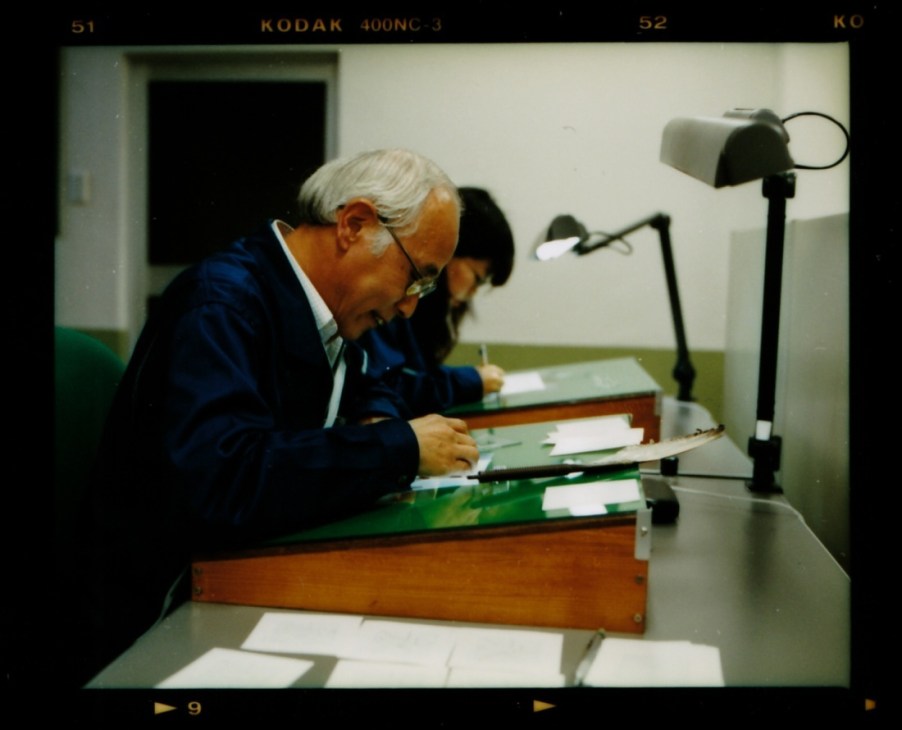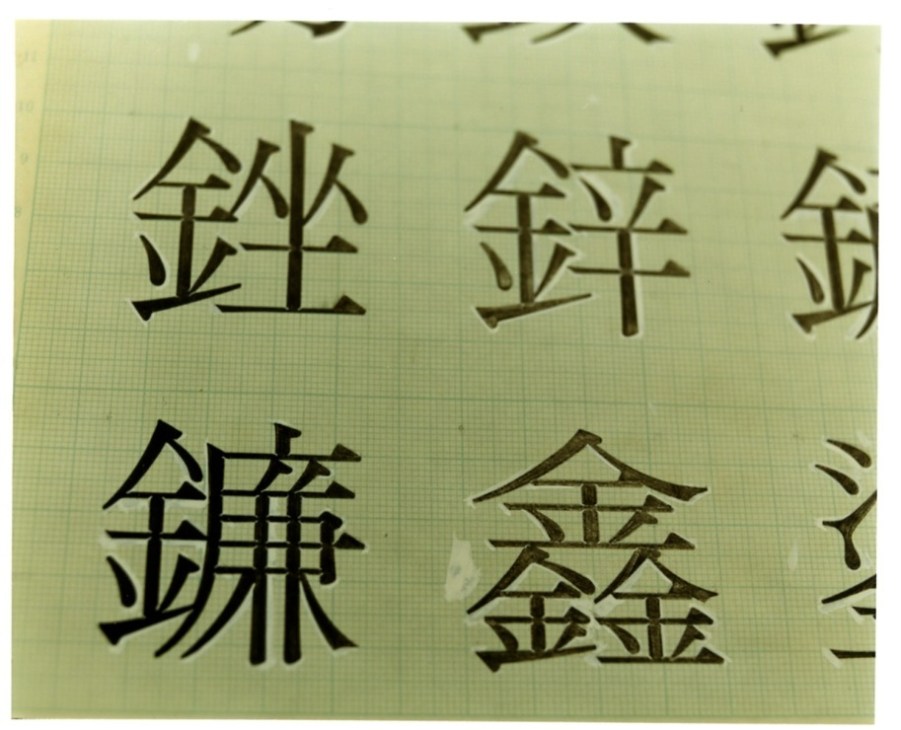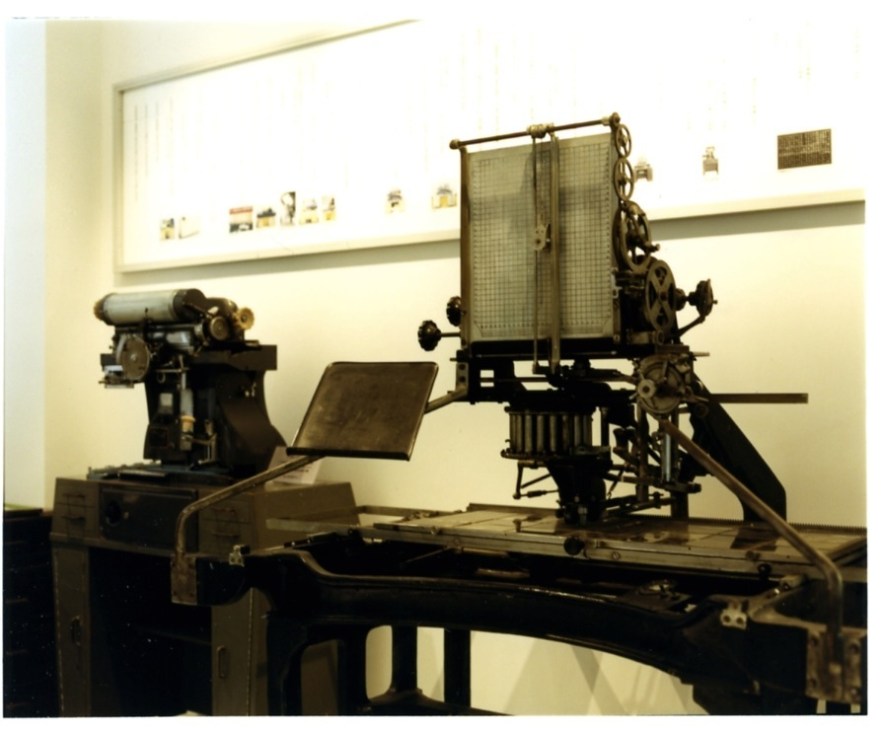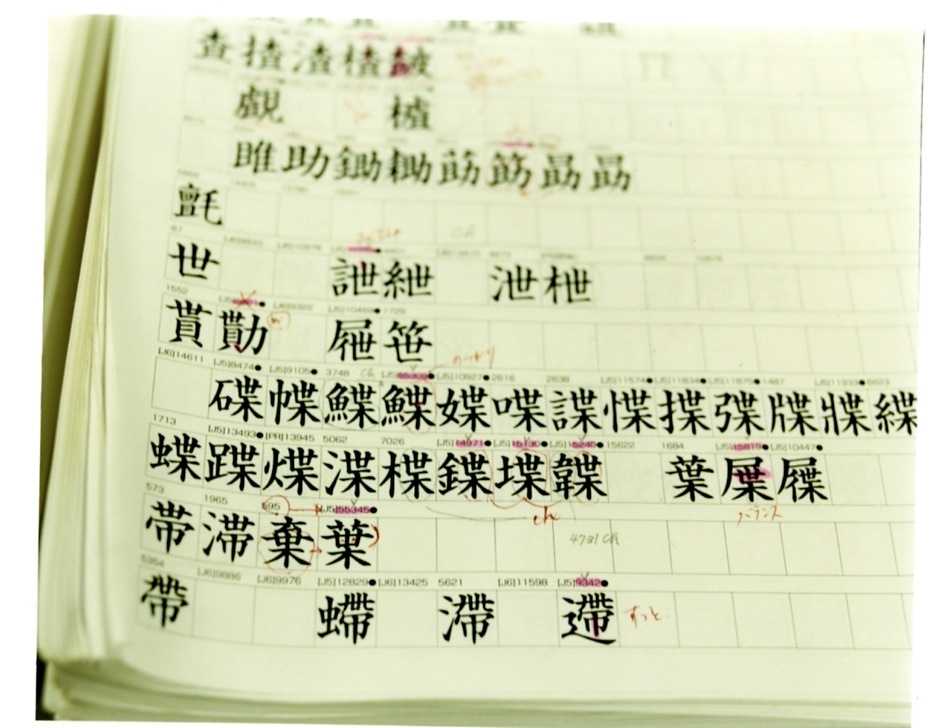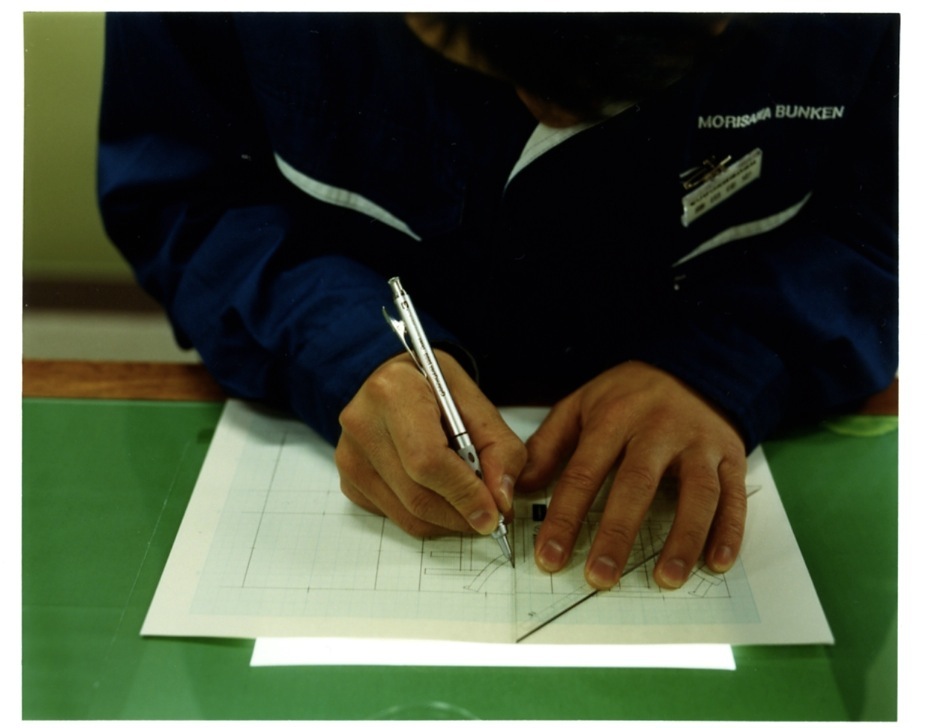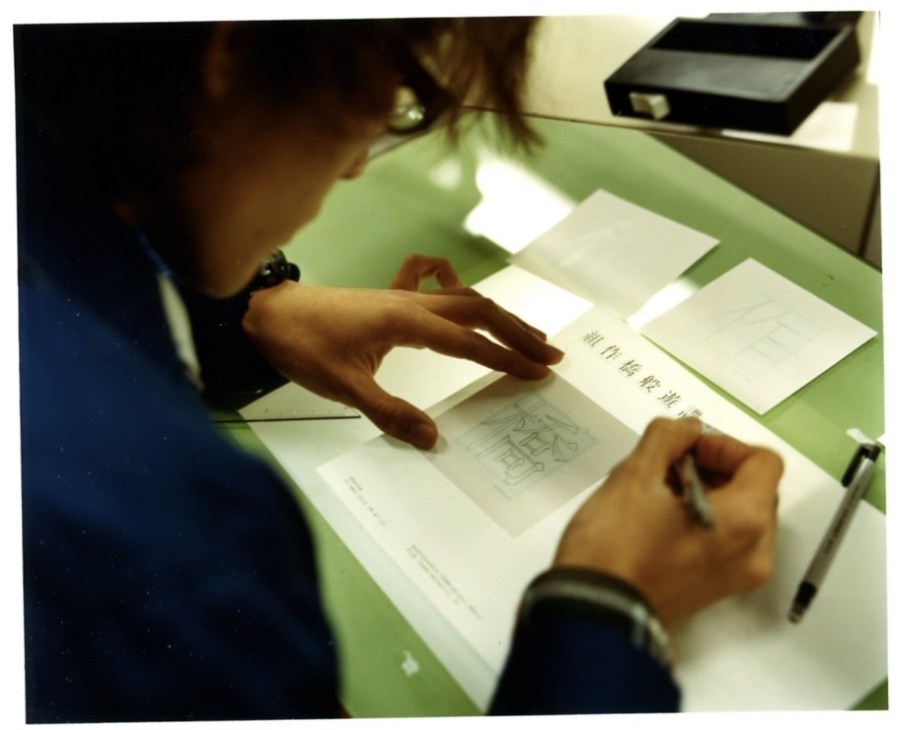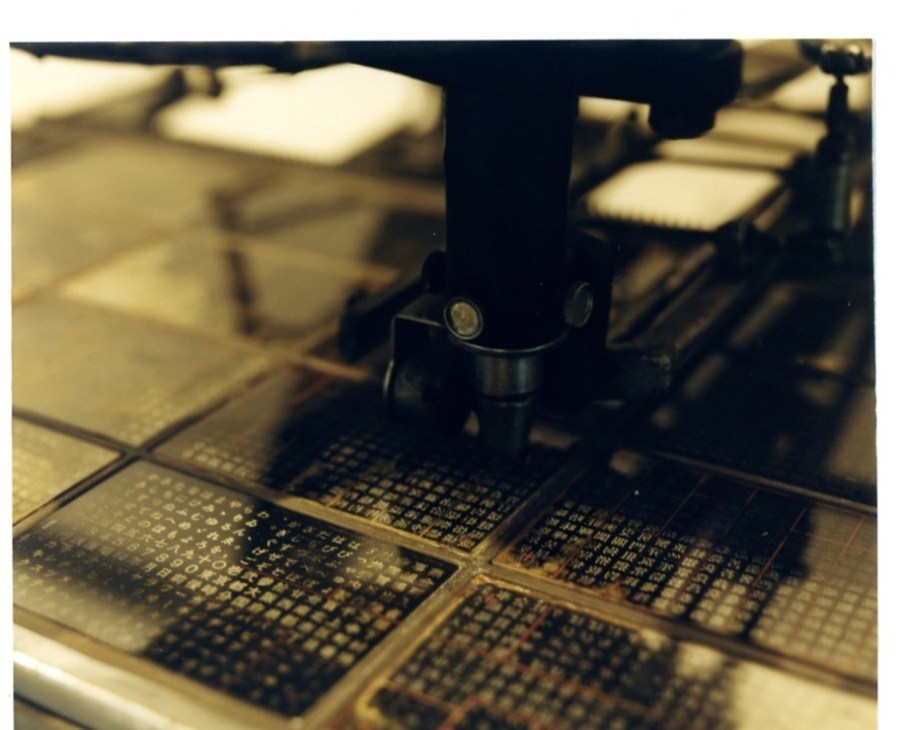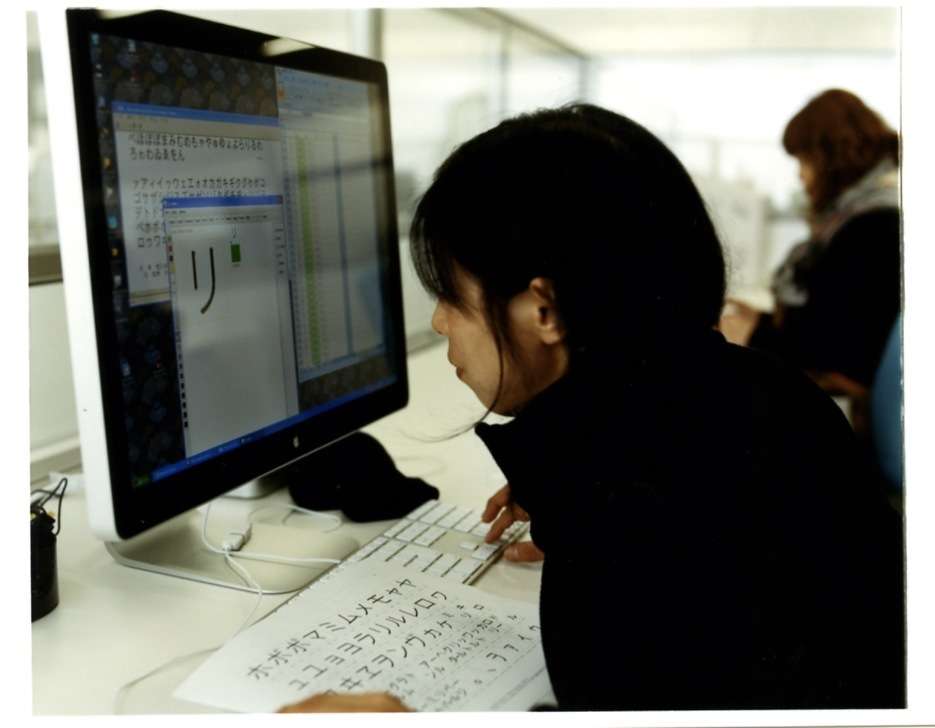
Fonts of knowledge
Japanese font-maker Morisawa takes up to four years to perfect a typeface. This meticulousness has led its fonts to become as celebrated as Helvetica, adorning everything from signs to computer screens.
It’s a Friday morning and Yasuo Ebisu is hunched over his worktable, sketching in silence. On graph paper he traces the outlines of Japanese kanji characters, the picture-like words that originate from China. Ebisu is one of more than 10 designers at font-maker Morisawa’s factory in Akashi – a city 60km east of Osaka – who sketches by hand every new font that the company produces.
In an era when most designers – of cars to couches – conduct their work on computers, Morisawa’s font factory may seem an anomaly. But the company doesn’t think so. Many of Morisawa’s rivals design fonts only on computers, but starting a new typeface with handcrafted drawings has been the Morisawa way for more than 50 years. “We continue drawing fonts by hand because we think that’s the best way to maintain quality,” says Tsunehisa Morisawa, who heads the font-making operations.
Few people overseas have heard of Morisawa but in Japan the company is to fonts what Intel is to computer chips. Founded in 1948 as a phototypesetting machine maker, Morisawa is the biggest purveyor of fonts used by many of the country’s major book and magazine publishers. Its minimalist Gothic and fancy Mincho typefaces are the Japanese equivalents of Times Roman and Helvetica in the West. Its fonts are read countrywide, from train station signage on the Yamanote line in Tokyo to the menus of Sony’s PlayStation 3 video gaming consoles.
For such a giant in the world of fonts, Morisawa’s factory is modest. Tucked away on a residential street, next to a Buddhist temple, the four-storey building houses just 34 employees and blends in with the surrounding houses and flats. (Members of the Morisawa clan live in the eastern wing of the building.) Only a small metal plaque that reads “Morisawa Bunken Co” on one wall hints at what goes on inside. “One of our young designers often passed by the building when he was a student but had no idea what went on here,” says Tsunehisa Morisawa.
When the Morisawa clan, who retain their controlling stake in the firm, built a new headquarters in Osaka, they decided to keep the font-making factory separate from the sales, marketing and software departments as they wanted to let designers single-mindedly pursue their craft. “The only thing they do here is font design,” says Tsunehisa Morisawa. “They can focus and not have to think about sales or marketing.” Morisawa’s revenues (up 5.3 per cent last year to €90m) mainly come from book publishers who license its fonts.
Morisawa has about 200 complete font sets in its library. And as publishers look to target laptops, smartphones and tablet computers, so does Morisawa. “My grandfather’s and father’s generations only knew the paper printing business,” says Akihiko Morisawa, 46, a year older than brother Tsunehisa and who took over as president last year. “Our generation is working in new media. We need to adapt.”
Developing a font takes years and can cost as much as €820,000. Why so long? Japan’s complex writing system relies on three different alphabets – kanji characters plus two 48-character phonetic alphabets called hiragana and katakana. Numbers, symbols and the Roman alphabet are usually standard in a Japanese font set. So while Roman alphabet fonts might run to several hundred characters, the basic Japanese font set has 7,000, and a complete set more than 23,000 characters.
At the factory in Akashi, every new design starts with brainstorming sessions, spread out over a year. The designers try to spot trends from magazines, books and ads, says Nobuyuki Miura, the font factory’s second-in-command. He opens an album to a photo from one recent meeting. Post-it notes in five colours are arranged into categories on a whiteboard. The notes are then whittled down to a set of rules: how many characters, what style – conservative or playful, or a mix – and whether the font is for books, ads or signs.
The drawing phase starts with the chief designer, who sketches the first 400 to 500 characters alone to ensure consistency. Decades ago, the designers wrote in charcoal and edited characters with white paint. Now Ebisu, the designer, uses a 2H mechanical pencil and eraser. Inside a 6cm x 6cm grid, he draws basic lines for the kanji character meaning “eternity”, and uses straight- and curved-edge rulers to complete the character’s outline.
Ebisu’s initial set of characters acts as a guide for other designers who later step in to help. New hires usually have to practise their technique for five years before being allowed to draw. “The clues for thousands of characters are contained in the core set,” says Tsunehisa Morisawa. “If the first 500 are bad or inconsistent, or changes need to be made, the designer will start from scratch. Fortunately, that rarely happens these days.”